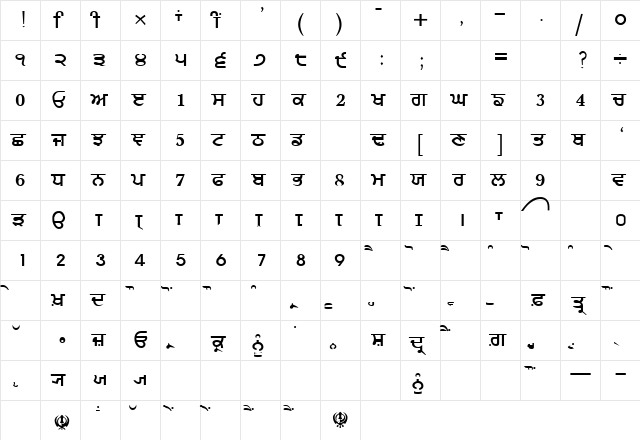
AkrutiPnjAmrita Bold Font Preview
AkrutiPnjAmrita Bold
AkrutiPnjAmrita Bold Font Details
Design Context for AkrutiPnjAmrita Typeface
AkrutiPnjAmrita offers clean, dependable letterforms without strong stylistic allegiance, making it a practical choice for designers who need flexibility. The heavy weight commands attention and anchors typographic hierarchies.